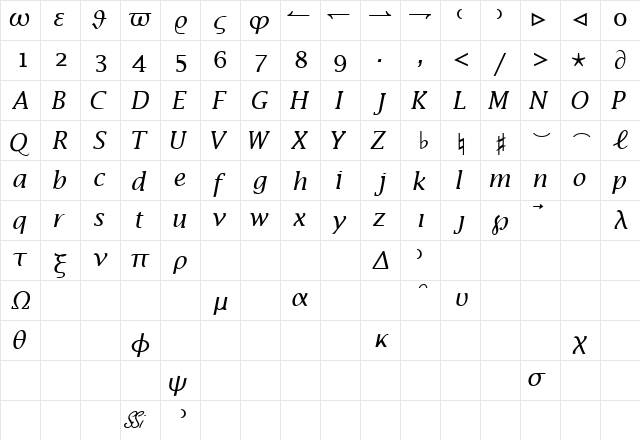
MachadoMathAlternateExtSSK Regular
Design Context for MachadoMathAlternateExtSSK Typeface
MachadoMathAlternateExtSSK takes a measured approach to typography — its balanced proportions and neutral character make it a reliable workhorse for both digital and print work.